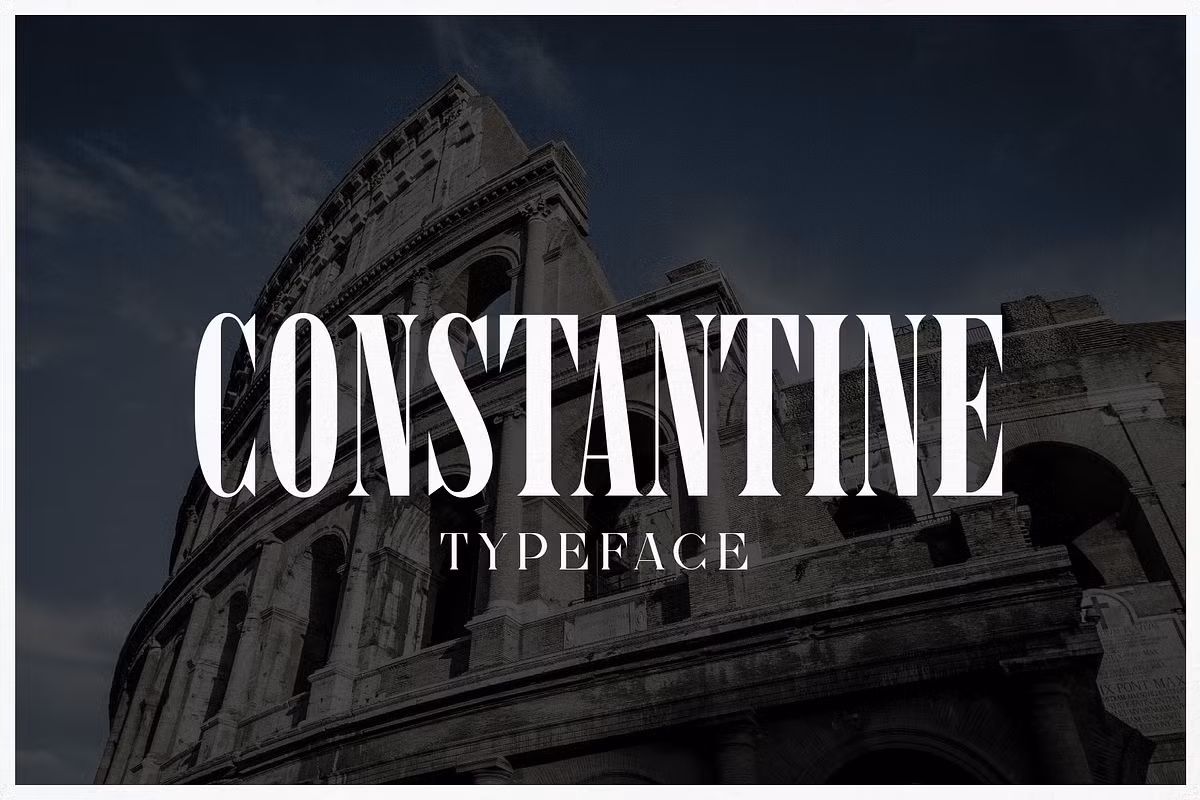
Please note that you must purchase this font for commercial use. You can download Constantine – Luxury Display Serif Font for free, strictly for personal testing purposes only. Constantine is an elegant and luxurious display serif font designed to convey sophistication, class, and professionalism. Featuring sharp serifs, sleek curves, and a refined design, Constantine Font Free Download is perfect for high-end branding, editorial layouts, luxury product packaging, and upscale event invitations.
The font exudes a timeless, premium quality, making it ideal for projects that demand a bold yet elegant statement. It includes uppercase and lowercase letters, numerals, punctuation, and multilingual support, offering versatility for global projects.
Whether you're designing a high-end brand, creating a stunning magazine cover, or working on elegant marketing materials, Constantine adds luxury and prestige to your typography.